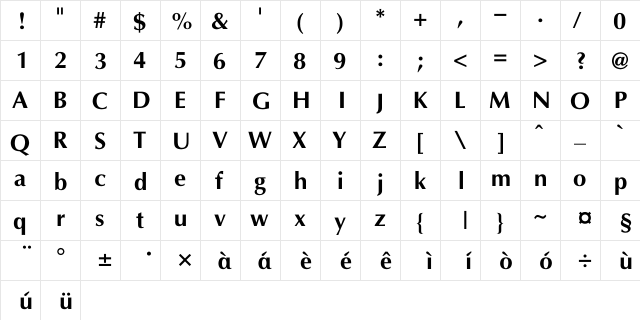
FZKangTi-S07T Regular Font Preview
FZKangTi-S07T Regular
Design Context for FZKangTi-S07T Typeface
FZKangTi-S07T takes a measured approach to typography — its balanced proportions and neutral character make it a reliable workhorse for both digital and print work.
Pro Tip: Use FZKangTi-S07T in both headline and body roles to test its range before committing to a single application.